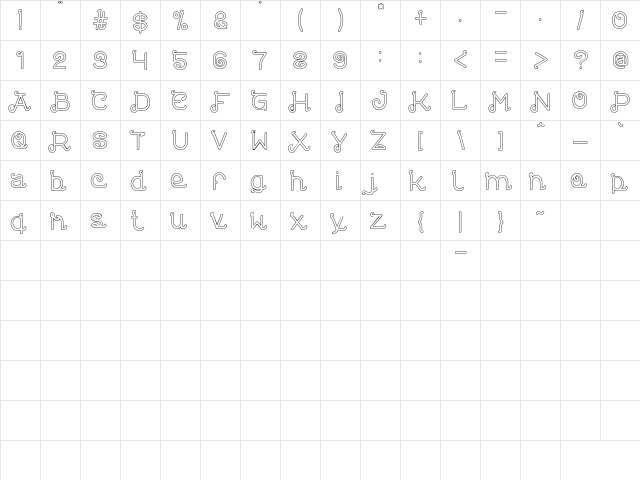
Painter pointer Regular
Design Context for Painter pointer Typeface
Painter pointer is a composed and adaptable typeface that performs quietly and consistently across a wide range of design contexts.